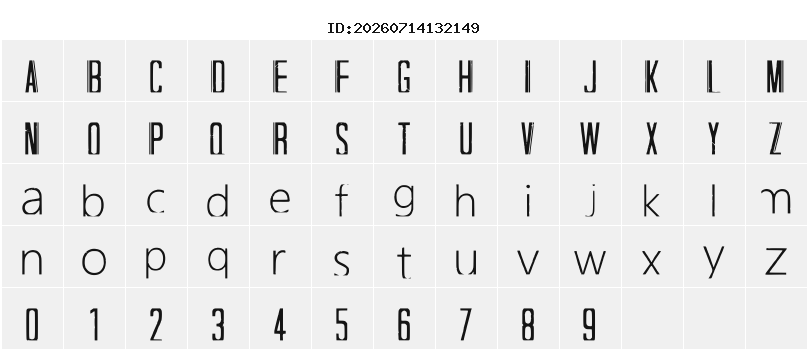
Hapuyalikethatbiko Preview
• Font Name: Hapuyalikethatbiko
• Full Font Name: Hapuyalikethatbiko
• PostScript Name: Hapuyalikethatbiko
About Hapuyalikethatbiko.ttf
Hapuyalikethatbiko.ttf is a modern, elegant sans-serif font designed for ultimate readability and visual harmony. Perfect for branding, headlines, web design, and print materials.